Selecting the appropriate font is crucial in determining the success of your logo. However, with such a large selection of fonts available, it can be difficult to find the one that suits your needs.Â
Fear not, design novice! We have done the difficult part. Here you will find the list of the most used logo fonts and the guide, which will show you how to select the best one. In this article, we shall focus on the different types of font styles, advice for their usage and, most importantly, examples. In other words, whether you are a professional graphic designer or a complete design newbie, be ready to have your logo skills bumped up a notch!
Here’s A List of Top 16 Best Logo Fonts
Let’s explore the realm of typography and uncover the 15 fonts that might be the ideal fit for your brand.
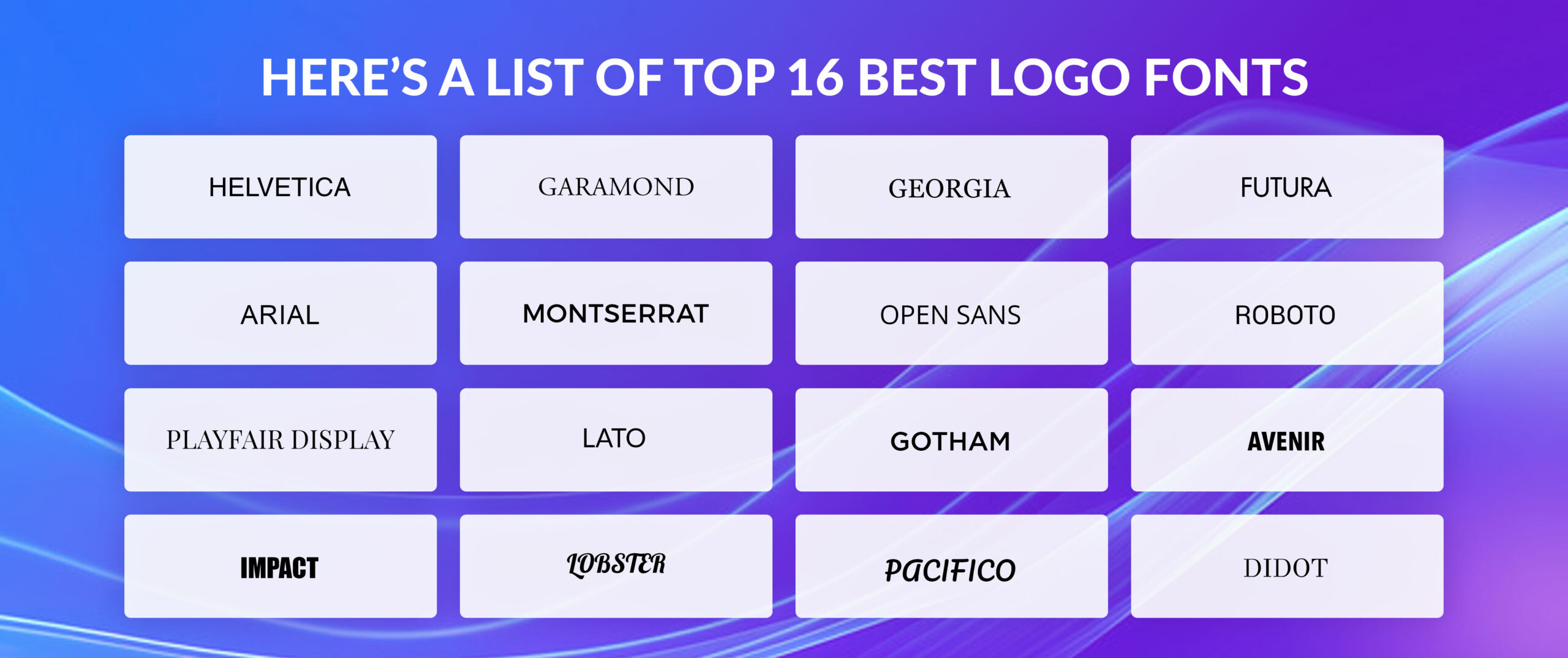
Helvetica
Helvetica is a prime illustration of a sans-serif typeface. This signifies that it lacks the small feet or decorative flourishes at the letter ends. It is neat, current, and extremely adaptable. Chances are you’ve encountered Helvetica numerous times without being aware of it. It can be found everywhere, from street signs to technology logos.
What is the reason behind the popularity of Helvetica in logos? It’s easy: it’s impartial. It doesn’t exhibit a distinct personality, making it suitable for various brands. It is like the font world’s classic black dress – sophisticated, ageless, and always fitting. If you are starting a tech startup or a minimalist fashion brand, Helvetica might be the ideal choice for your logo.
Garamond
Garamond and Helvetica are polar opposites and the most vintage font among the list. It is a typeface with serifs, which are small projections at the end of each letter. This provides it with a more conventional, vintage appearance. Consider it like a custom-made suit compared to Helvetica’s classic black dress.
Garamond is frequently employed for high-end brands or anything aiming to communicate a feeling of tradition or elegance. It is stylish, easy to read, and displays a classic feel. If your focus is on upscale dining, luxury fashion, or legal services, Garamond could be the perfect font to enhance your logo.
Georgia
Georgia is a different serif typeface that has a more contemporary vibe when compared to Garamond. It is made to be visually pleasing, even when seen on computer screens. That is why it is a common option for websites and digital media.
Adding Georgia as the font used in the logo of your business can somehow bring out the friendly and identity aspect of your company. The model is versatile enough to apply to various fields including publishing as well as the food and beverages line. All in all, Georgia’s appearance may be worth it if you are in search of a traditional font that will not strain your eyes.
Futura
Futura is a prime illustration of a sans-serif typeface, lacking the small projections at the conclusion of characters. It is famous for its precise lines and structured shapes. This typeface is frequently utilized in professional environments due to its modern and efficient feel. Consider modern technology firms, simple aesthetics, or company emblems. Futura is a commonly chosen option for these types of brands. It is adaptable, easy to read, and its enduring charm makes it a popular choice for numerous logo designs.
Arial
Arial is a widely known sans-serif font that is easily recognizable. It is commonly utilized in digital design and printing, making it a flexible option for various font designs. Although Arial may not stand out like some other choices, its simplicity and readability are its strong points. It’s a reliable choice for numerous logo designs, particularly if you are aiming for a sleek and contemporary appearance. This typeface is a reliable asset in the design industry, and rightfully so.
Montserrat
Montserrat, though newer than Futura and Arial, has rapidly become popular. It features a geometric style with rounded elements which add a welcoming touch to the sans-serif font. This mix makes it a flexible option for various logo styles. Montserrat is frequently utilized by technology, fashion, and lifestyle companies. If you’re in search of a contemporary and friendly font with a hint of flair, Montserrat might be just right for you.
Open Sans
Open Sans is frequently encountered as one of the most popular fonts. It is a sans-serif typeface, which means it lacks the decorative strokes at the end of characters. This results in a clean and contemporary look. Due to its versatility and visual appeal, it is a widely favored option for websites, applications, and printed materials. Although it may not be the most thrilling typeface available, its simplicity and readability make it a formidable option for numerous logo designs.
Roboto
Roboto is a popular sans-serif font that has become a must-have in the design industry. It is commonly linked with technology and contemporary design. Its clean and futuristic appearance is characterized by its geometric shapes. Roboto is very easy to read and is effective in various sizes, which makes it an excellent option for both titles and main text. If you want a modern and stylish logo, Roboto is a great option to consider.